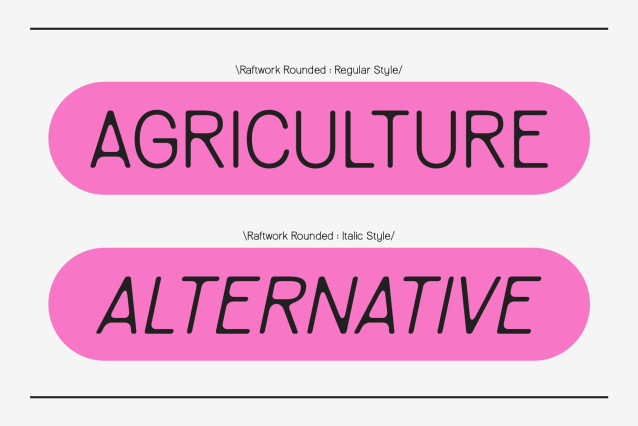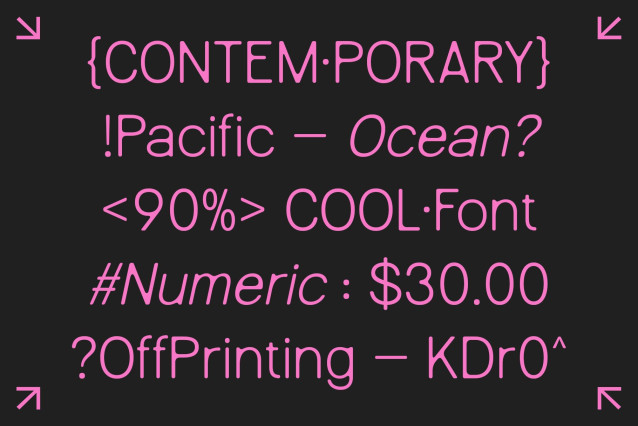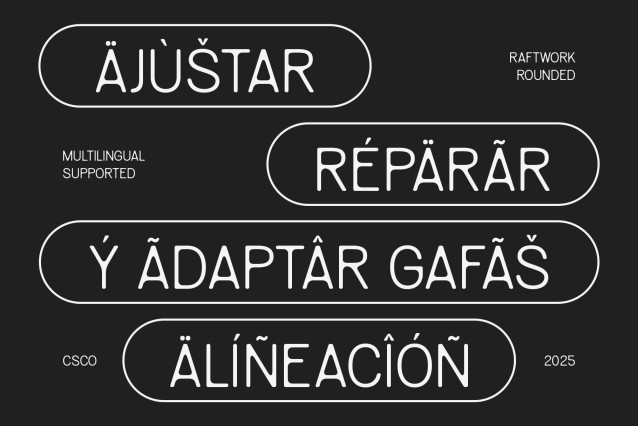
Raftwork Rounded Font
Raftwork Rounded Font is a modern sans serif font designed with a clean, minimalist structure that aligns with contemporary aesthetics. Built on geometric and humanist foundations, its form is sleek, well-balanced, and highly readable, making it ideal for both digital and print contexts.